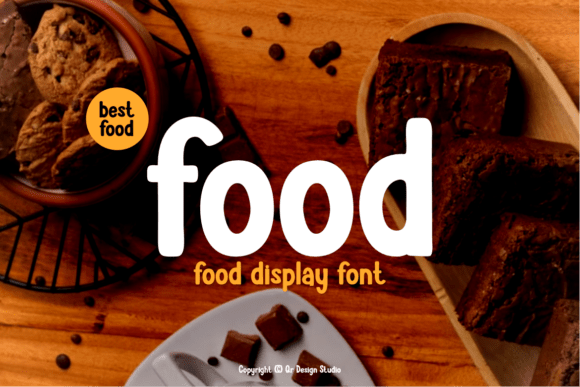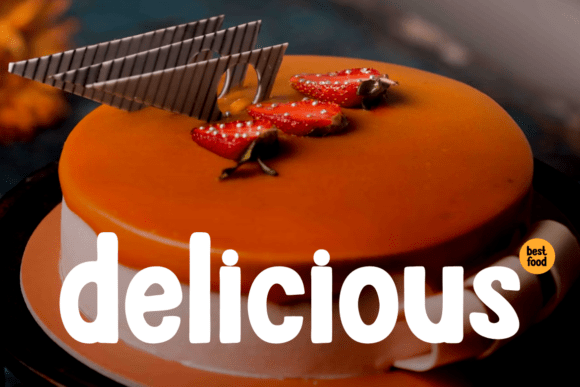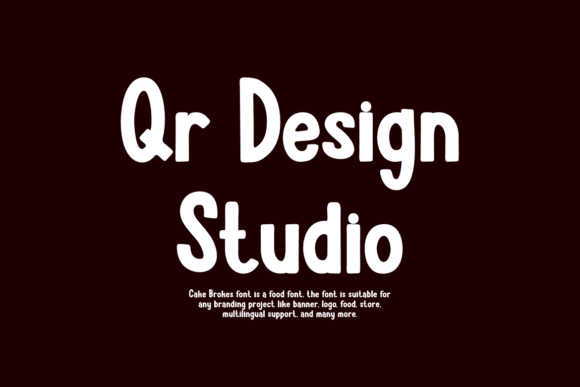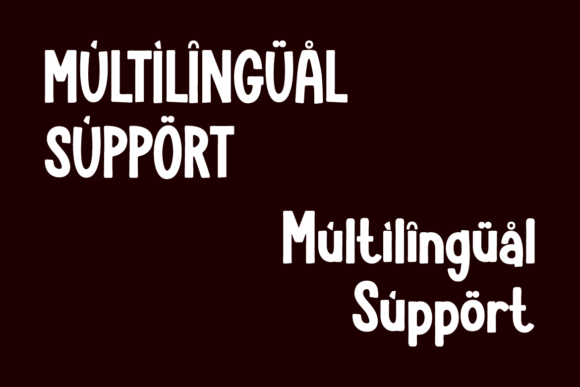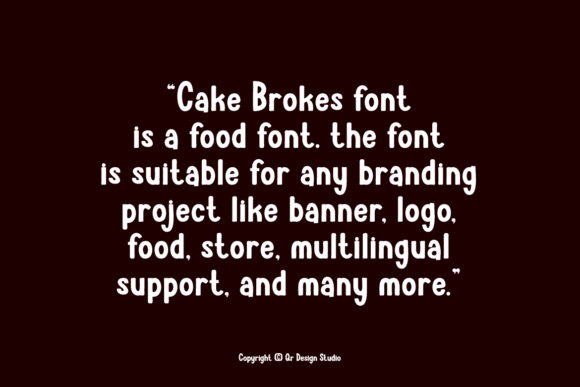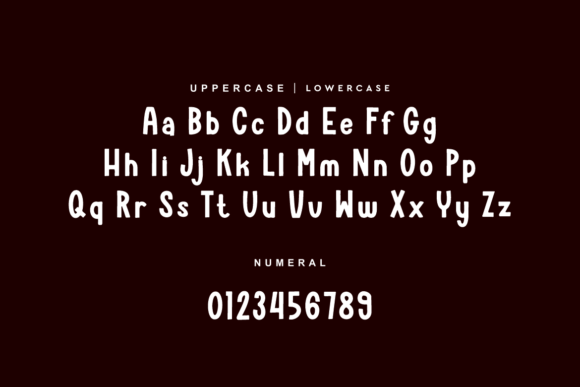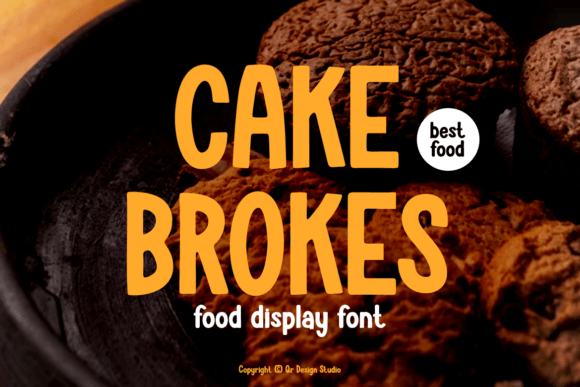
Cake Brokes Font: The Perfect Addition to Your Food Branding
Are you a designer or crafter looking for a font that can add a touch of warmth and appetizing vibe to your food packaging, bakery branding, or menu designs? Look no further than Cake Brokes Font! This bold food display font is packed with flavor and is sure to make your designs stand out.
The Characteristics of Cake Brokes Font
Cake Brokes Font boasts thick, friendly letters and a casual design that gives it a homemade feel. This font is perfect for those who want to convey a sense of warmth and approachability in their designs. The playful yet readable design makes it ideal for grabbing attention while keeping your message crystal clear.
Perfect for Food Packaging and Bakery Branding
Cake Brokes Font is specifically designed for food display and is perfect for use in food packaging, bakery branding, and menu designs. The font’s warm and appetizing vibe makes it an excellent choice for businesses that want to showcase their products in a friendly and inviting way.
Key Features of Cake Brokes Font
- Bold and eye-catching: Cake Brokes Font is a bold food display font that is sure to grab attention.
- Thick and friendly letters: The font’s thick letters give it a friendly and approachable feel.
- Casual design: The casual design of Cake Brokes Font makes it perfect for food packaging, bakery branding, and menu designs.
- Playful yet readable: The font is playful yet readable, making it ideal for grabbing attention while keeping your message clear.
- Homemade feel: Cake Brokes Font has a homemade feel that draws attention and feels deliciously welcoming.
How to Use Cake Brokes Font
Cake Brokes Font can be used in a variety of ways to enhance your food branding. Here are a few ideas:
- Food packaging: Use Cake Brokes Font to add a touch of warmth and personality to your food packaging.
- Bakery branding: Create a cohesive brand identity for your bakery with Cake Brokes Font.
- Menu designs: Use Cake Brokes Font to create eye-catching menu designs that showcase your dishes in a friendly and inviting way.
- Social media graphics: Use Cake Brokes Font to create engaging social media graphics that showcase your food products.
Why Choose Cake Brokes Font?
There are many fonts available that can be used for food branding, but Cake Brokes Font stands out from the rest. Here are a few reasons why:
- Unique design: Cake Brokes Font has a unique design that sets it apart from other fonts.
- Easy to read: The font is easy to read, making it perfect for use in a variety of applications.
- Versatile: Cake Brokes Font can be used in a variety of ways, from food packaging to social media graphics.
Cake Brokes Font is a bold food display font that is perfect for food packaging, bakery branding, menu designs, and more. Its thick, friendly letters and casual design make it an excellent choice for businesses that want to convey a sense of warmth and approachability. With its playful yet readable design, Cake Brokes Font is sure to grab attention and leave a lasting impression.